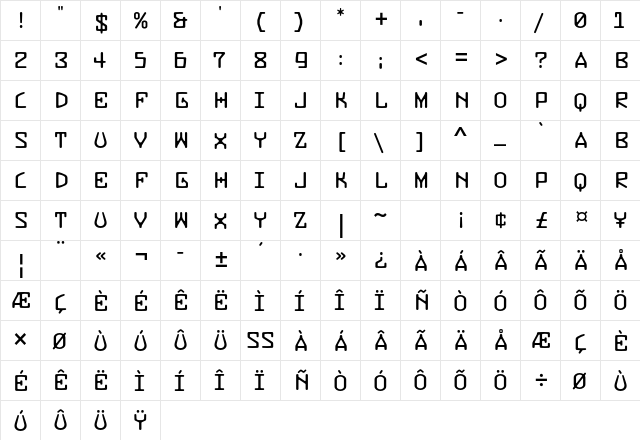
Buzzer Three Std Regular
| Designer | Paul Crome and Tony Lyons |
Design Context for Buzzer Three Std Typeface
Buzzer Three Std is a composed and adaptable typeface that performs quietly and consistently across a wide range of design contexts.